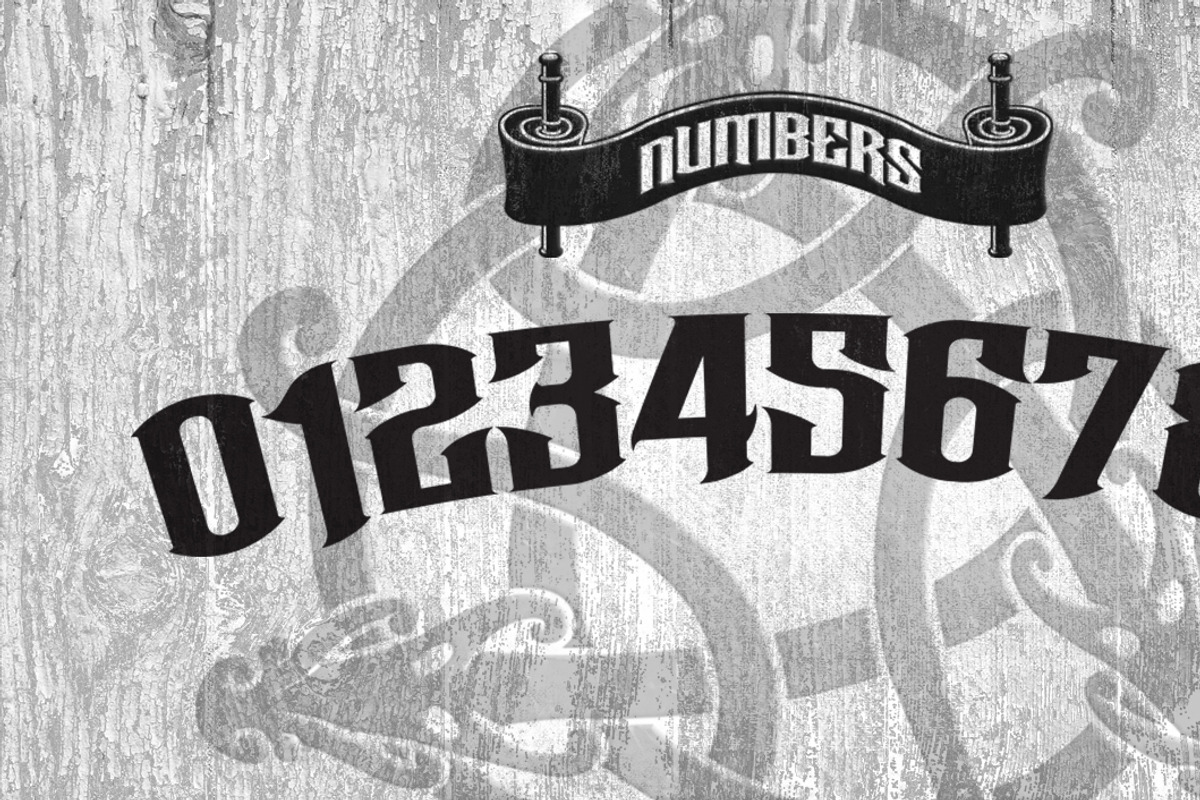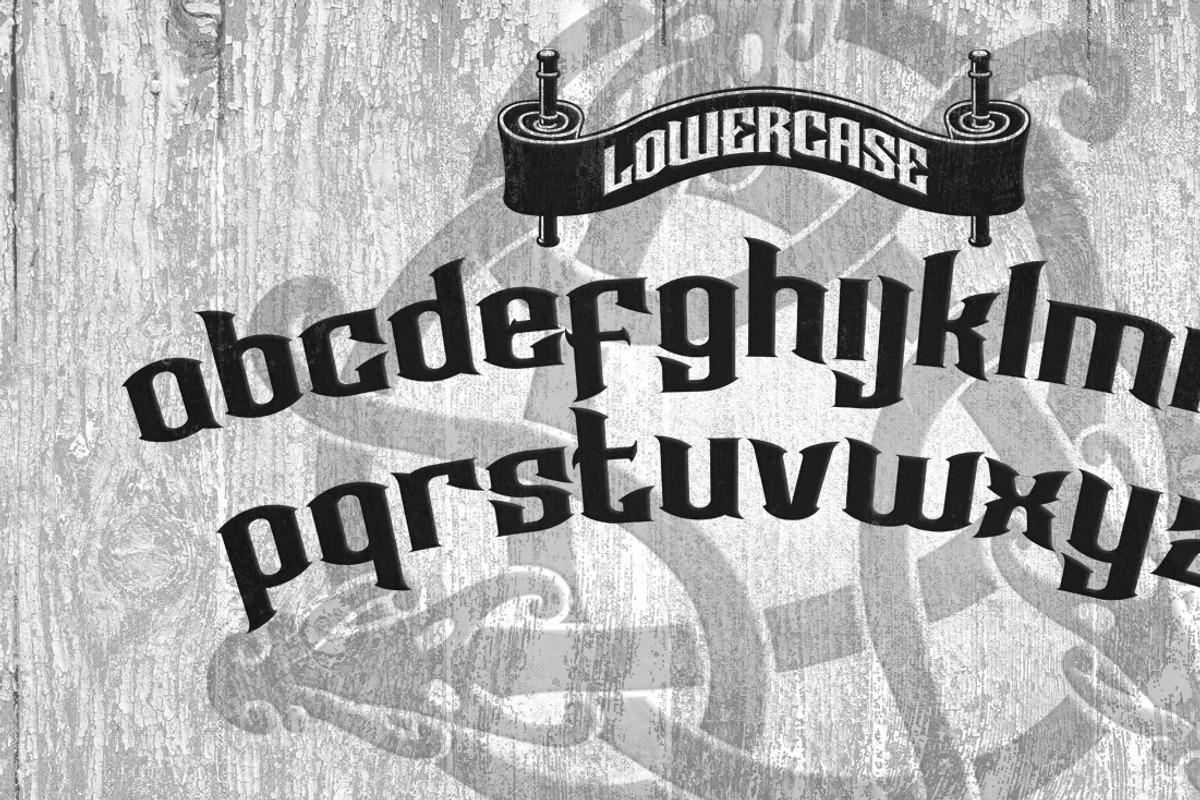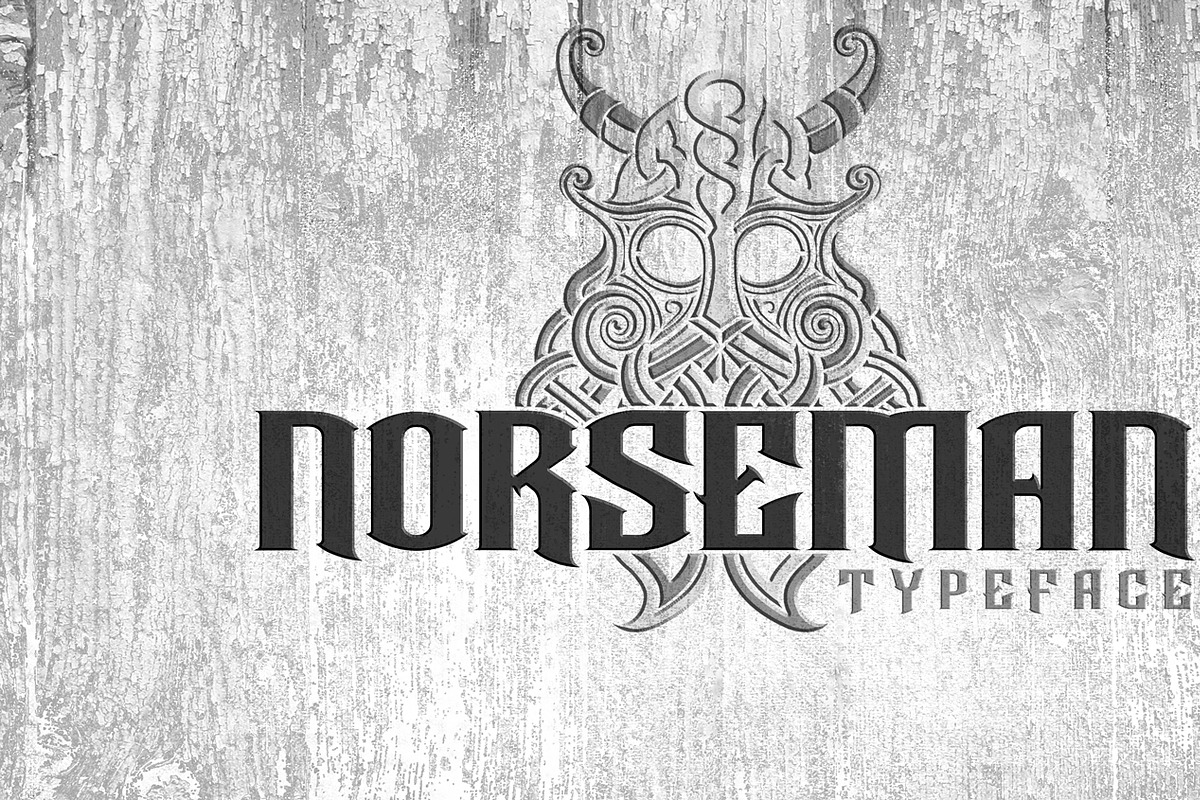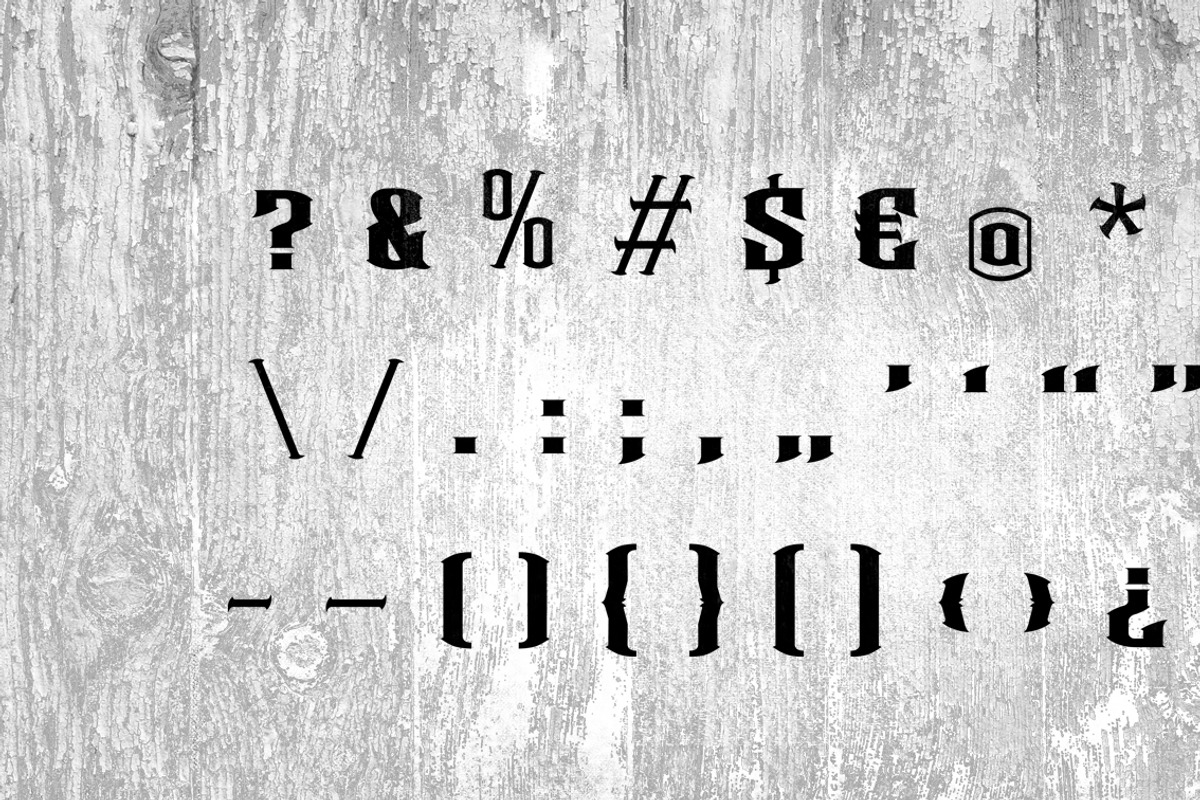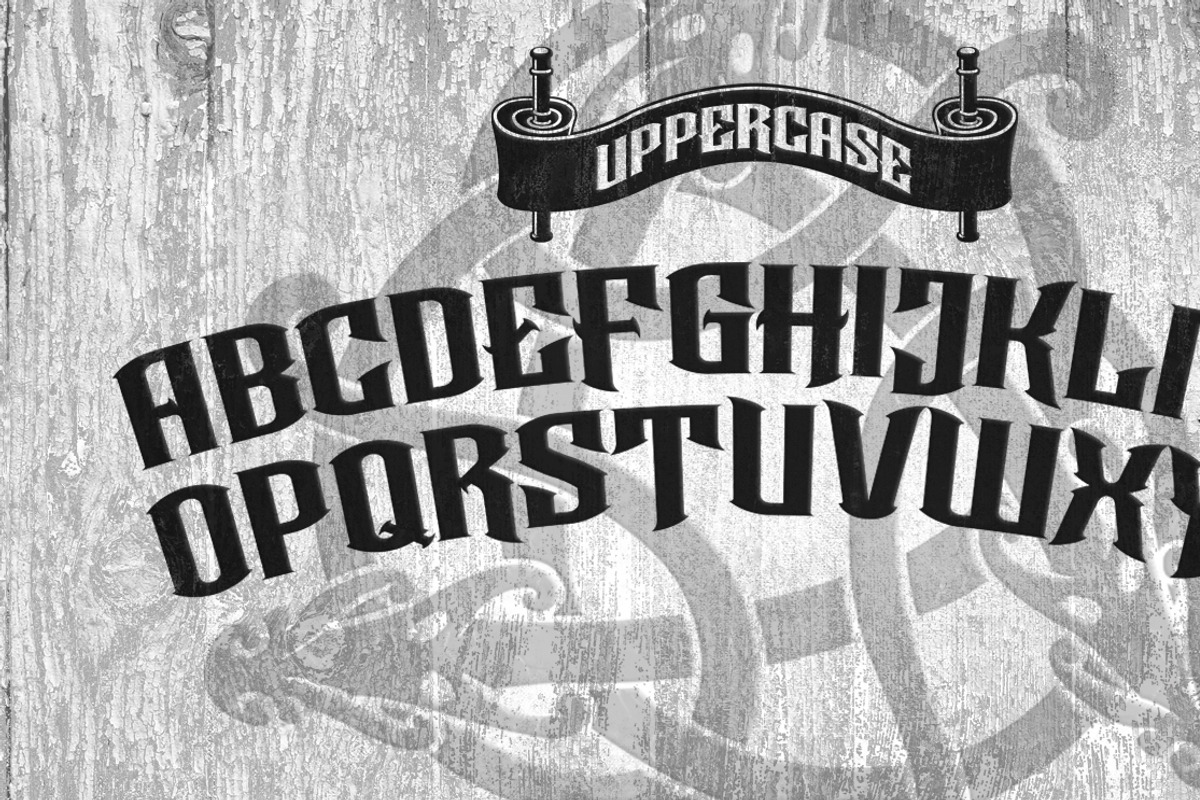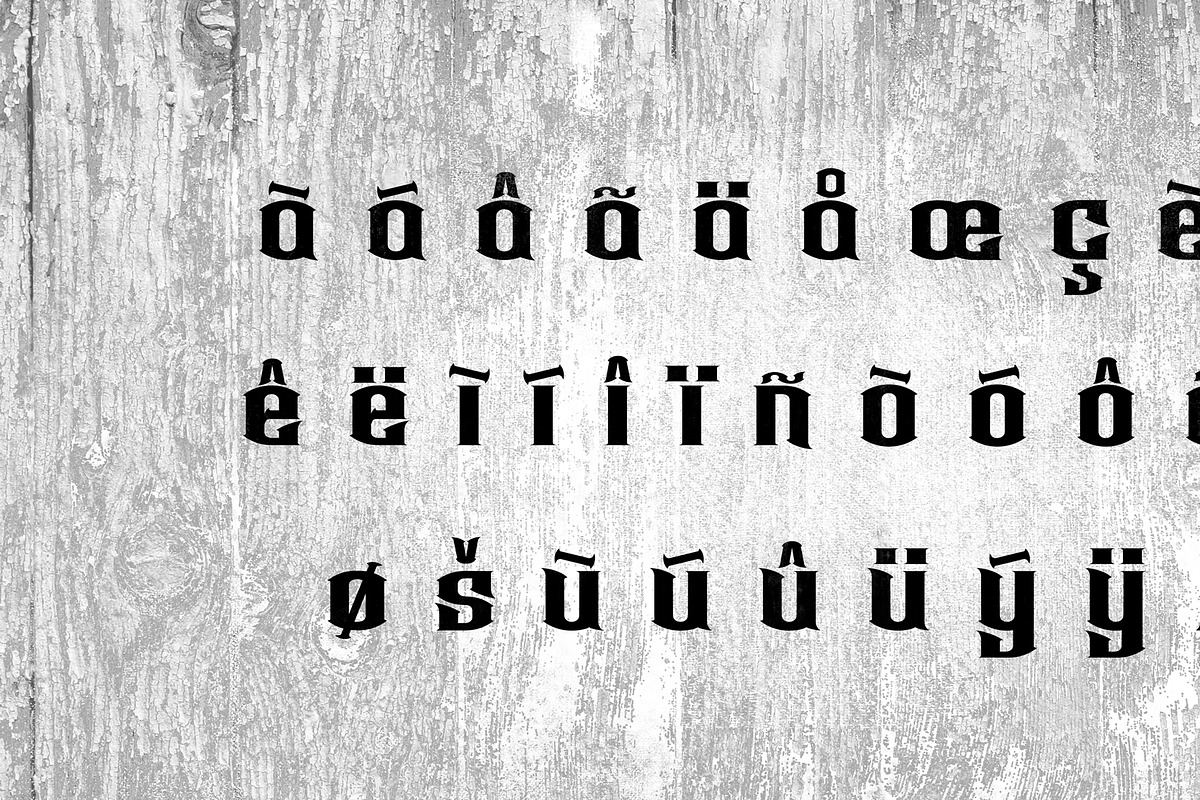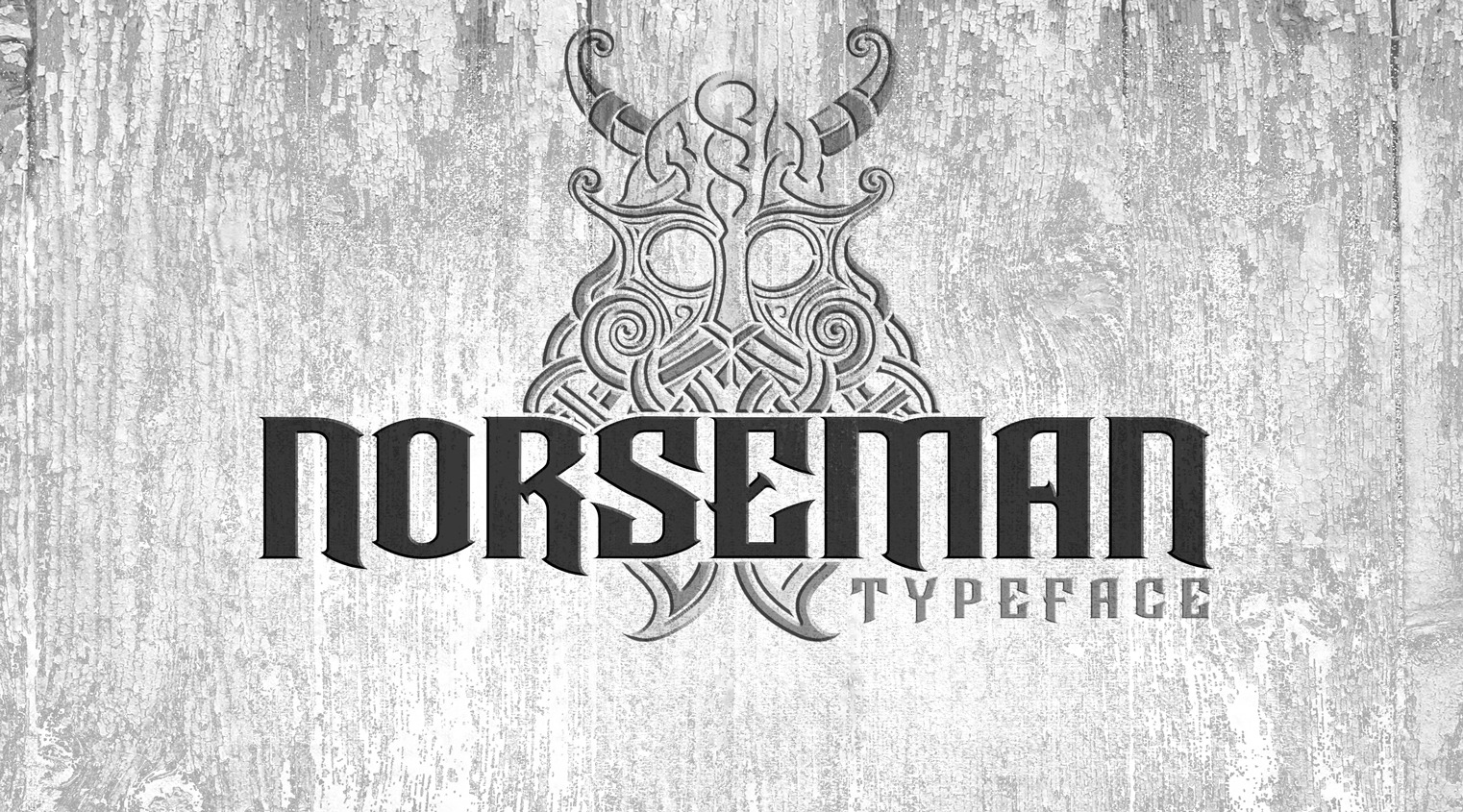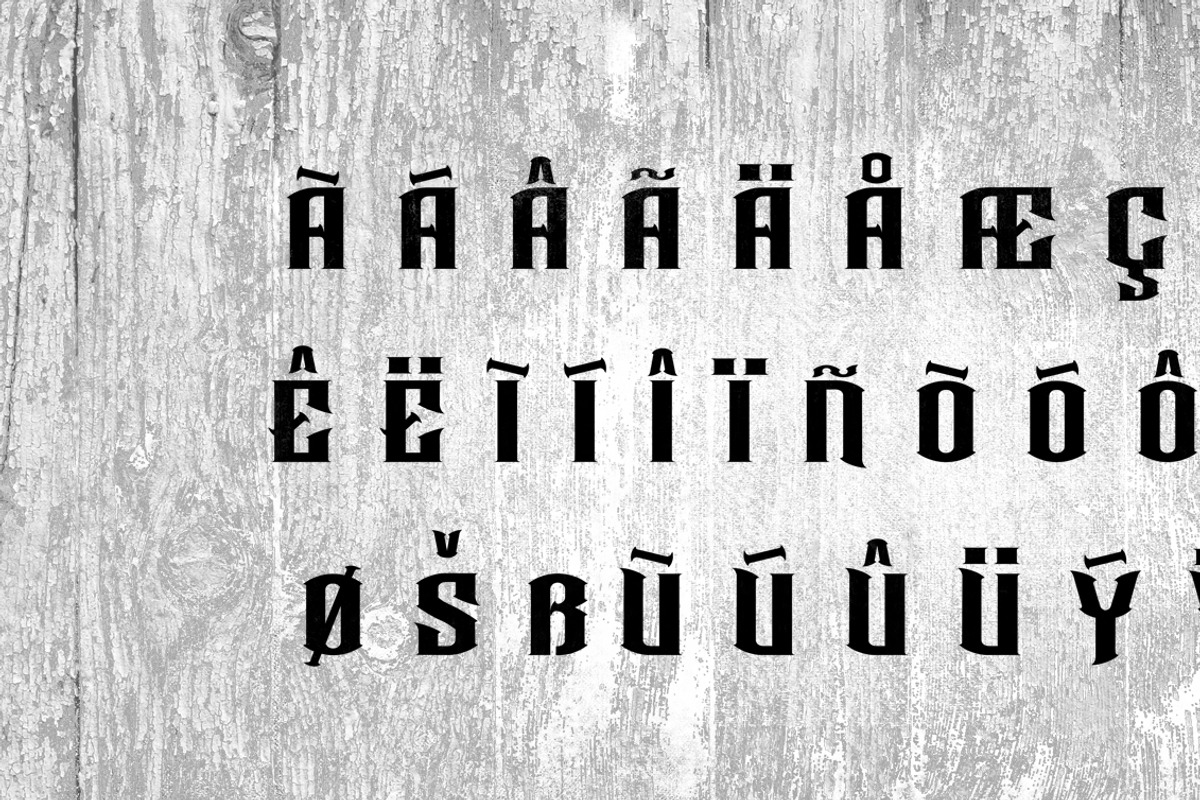
Norseman Font
Forged to be as imposing as a norse horde ready to stampede into battle, Works great in all caps which it was initially designed to. I designed the lowercase glyphs to match really well with eachother and the uppercase, so it works well in title case. Plus it has a great set of looking numbers and loads of extras. Fully kerned pairs so all letter combinations look great! You can check out the gallery for the font here https://www.behance.net/gallery/20585681/Norseman-Typeface